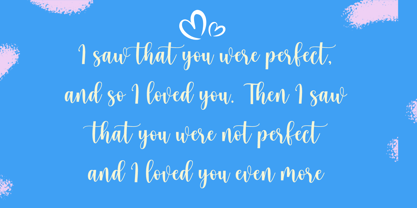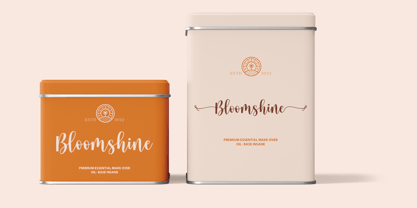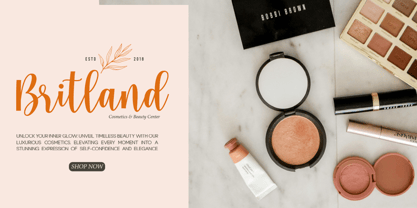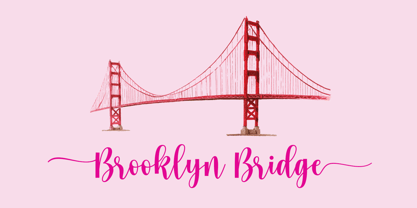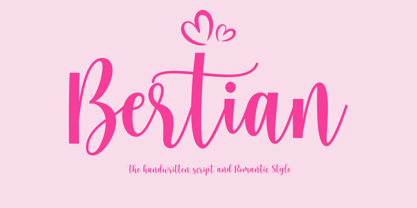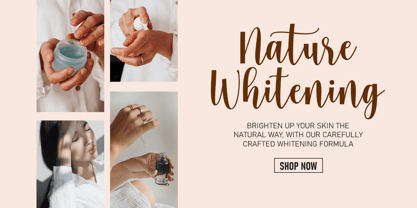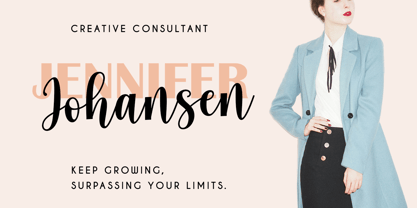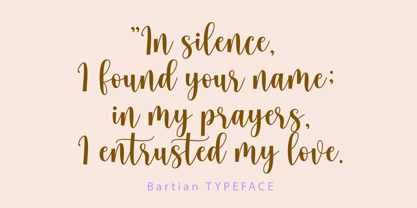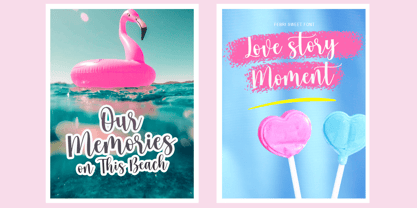
Bertian
by Encolab
The Bertian Font Family was designed by Saiful and published by Encolab. Bertian contains 1 styles. More about this family
Bertian is a modern and dynamic font that features elegant swashes. This versatile typeface is perfect for a wide range of applications, including titles, signatures, logos, wedding invitations, letterhead, signage, labels, newsletters, posters, badges, and more. Its unique design allows you to mix and match to create the best combinations for your projects. Bertian is well-suited for branding, packaging, poster designs, and magazine layouts, making it an excellent choice for any creative endeavor. May Bertian bring joy and vibrancy to all your creations.
Designers: Saiful
Foundry: Encolab